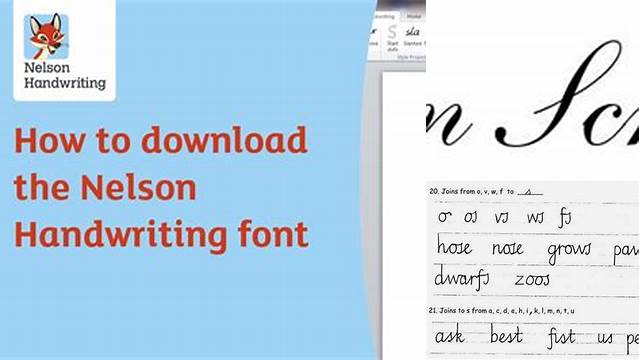
Hey guys! Ever stumbled upon those beautiful, flowing scripts that just scream elegance and personality? Well, today we're diving deep into one of those gems: the Nelson handwriting font. If you're on the hunt for a font that can add a touch of class to your projects, whether it's invitations, logos, or even just a personal note, you've come to the right place. We're going to explore where you can snag this font for free, how to use it, and why it's such a popular choice among designers and creatives alike. So, buckle up, grab your favorite beverage, and let's get this font party started!
Understanding the Appeal of Nelson Handwriting Font
The Nelson handwriting font isn't just another pretty typeface; it's a carefully crafted digital representation of natural handwriting. What makes it stand out, you ask? Well, it often embodies a certain casual sophistication. Think of it as the script your stylish aunt might use for her birthday cards – legible, warm, and undeniably charming. Unlike overly formal calligraphy or blocky, impersonal sans-serifs, Nelson strikes a beautiful balance. It carries the warmth and individuality of human script without sacrificing readability. This is crucial, guys. A font needs to be seen and understood. Nelson achieves this by maintaining clear letterforms while incorporating subtle variations and ligatures that mimic real handwriting. It’s this delicate dance between authenticity and usability that makes it a go-to for a multitude of projects. Imagine wedding invitations that feel personal and heartfelt, or branding for a boutique that needs a touch of artisanal flair. The Nelson font can deliver that and so much more. Its versatility is one of its biggest strengths, allowing it to adapt to various design contexts and elevate the overall aesthetic. We’ll explore its features and where to download it shortly, but first, let's appreciate the artistry behind this popular font choice.
Using Nelson Font in Your Design Projects
Now that you've got the Nelson handwriting font downloaded and installed, the fun really begins! Using it in your design projects is where its magic truly comes alive. Whether you're crafting a wedding invitation suite, designing a logo for your small business, or even spicing up a social media graphic, Nelson offers that personal, handcrafted feel. For invitations, imagine pairing it with a clean, sans-serif font for the main details to ensure maximum readability. Nelson can shine for names, headings, or special quotes, adding that romantic, elegant touch. For branding, it’s fantastic for businesses that want to convey warmth, approachability, and a personal connection with their customers. Think artisanal bakeries, handcrafted gift shops, or even freelance photographers. When using it in design software like Adobe Photoshop, Illustrator, or even simpler tools like Canva, just select the text tool, click on your text layer, and browse your font list. You should find "Nelson" (or whatever the specific name is) in the dropdown menu. Play around with its size, kerning (the spacing between letters), and leading (the spacing between lines) to get the perfect look. Sometimes, handwriting fonts look best with slightly looser spacing. Don't be afraid to experiment, guys! Remember, the goal is to enhance your message, not overshadow it. Nelson is great for adding a unique signature feel to your work.
Exploring Different Styles and Weights (If Available)
While many handwriting fonts, including versions of the Nelson handwriting font, might come in a single, elegant style, sometimes you get lucky! Designers occasionally release variations that offer different weights (like light, regular, bold) or stylistic sets. If you find a version of Nelson that includes multiple styles, explore them! A lighter weight might be perfect for subtle accents or background text, while a bolder weight could make headings pop. Some advanced OpenType fonts even come with stylistic alternates – imagine different versions of the letter 'a' or 's' that you can cycle through to give your text an even more natural, varied look. This is where the real artistry comes in, guys. When installing, you might see multiple font files within the downloaded folder (e.g., Nelson-Regular.ttf, Nelson-Bold.ttf). Install all of them just like you would a single font. Then, in your design software, you'll be able to select these different weights or styles directly from the font dropdown or through OpenType feature panels. Even if your version of Nelson only has one style, don't worry – it's likely beautiful enough on its own! But it's always worth a quick check in the download folder or on the font's page to see if there are any extra goodies waiting for you. This can add a whole new dimension to how you use the font!
Tips for Creative Uses of Nelson Handwriting Font
The Artistry in Nelson Font Design
The creation of a font like the Nelson handwriting font is a true exercise in artistry. It's not as simple as just typing letters! Designers meticulously craft each glyph (that's the technical term for a character like 'A' or '